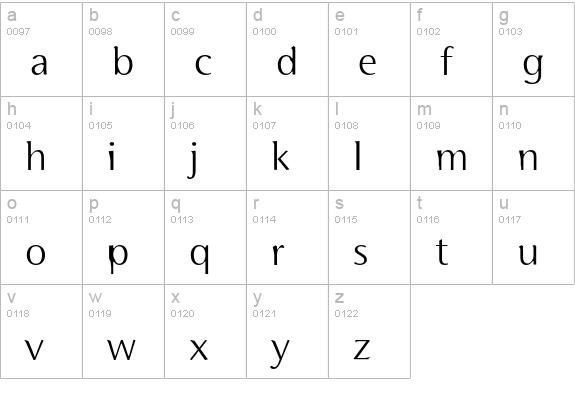
TaintedDiet Font Details
Introducing TaintedDiet, a captivating and truly unique font that will add a dash of edgy sophistication to any project. With its strikingly bold yet graceful letterforms, TaintedDiet captures the essence of modern design with a touch of rebellion. What sets TaintedDiet apart is its meticulously crafted details and unconventional styling. Each character is imbued with a sense of raw, untamed energy, making it perfect for expressing daring ideas and pushing the boundaries of creativity. With TaintedDiet, you have the freedom to experiment and explore. Its versatility allows it to seamlessly adapt to a wide range of design projects, whether it be eye-catching logos, attention-grabbing headlines, or unique branding materials. This font is truly a game-changer in the world of typography. And the best part? TaintedDiet is available completely free of charge at FontsMarket.com. We believe that great design should be accessible to all, and that's why we've made this exceptional font freely available for download. So go ahead, unleash your creativity, and let TaintedDiet elevate your designs to new heights.